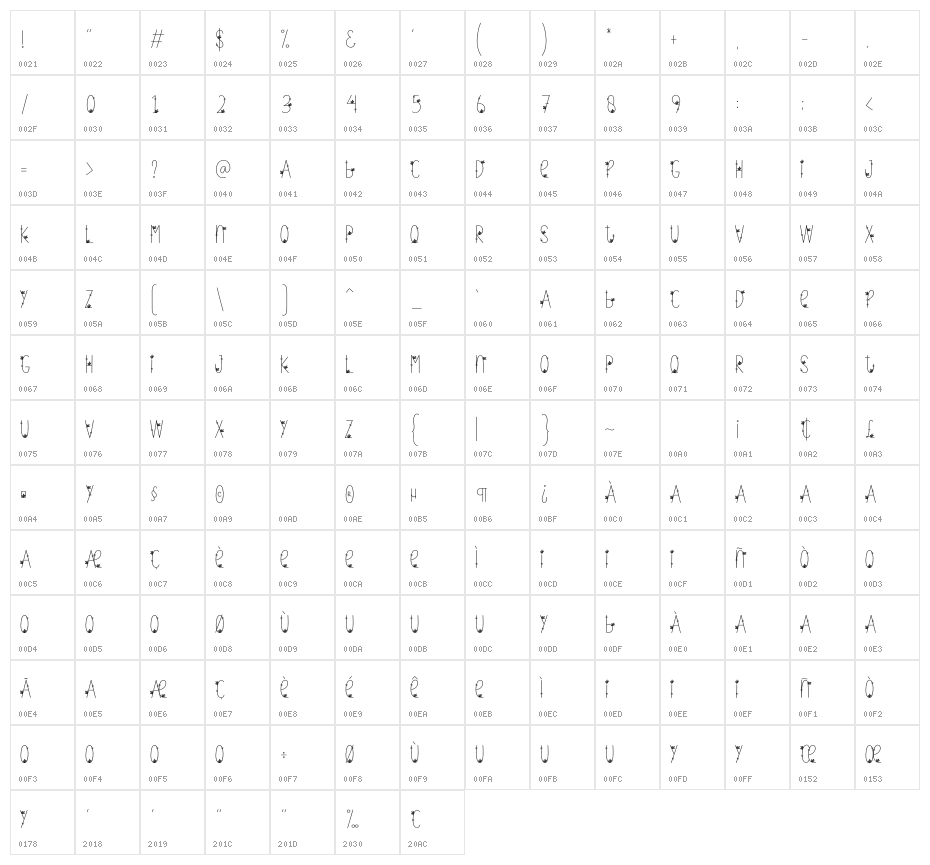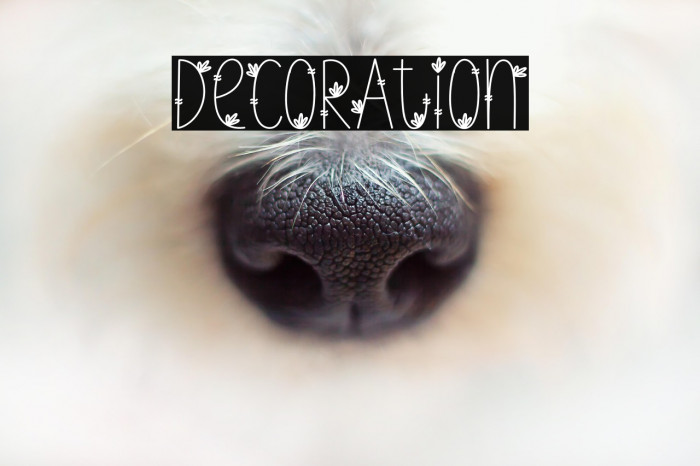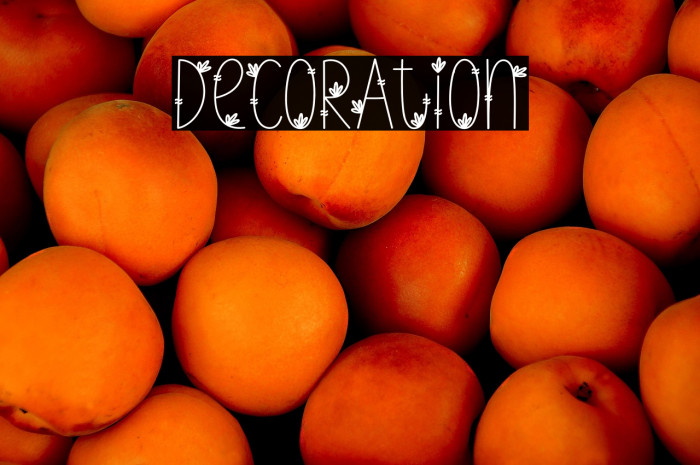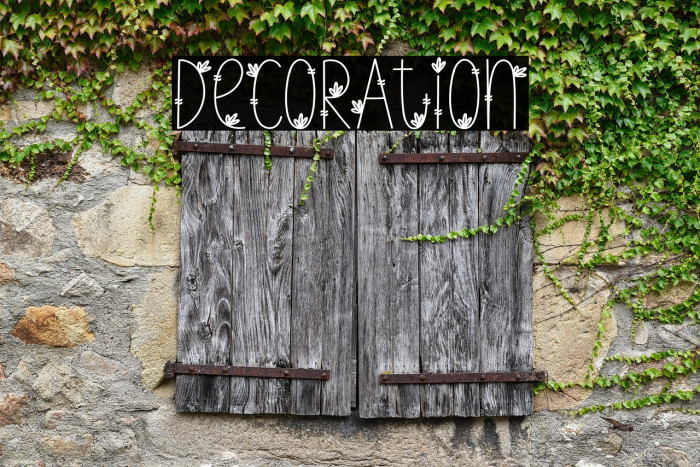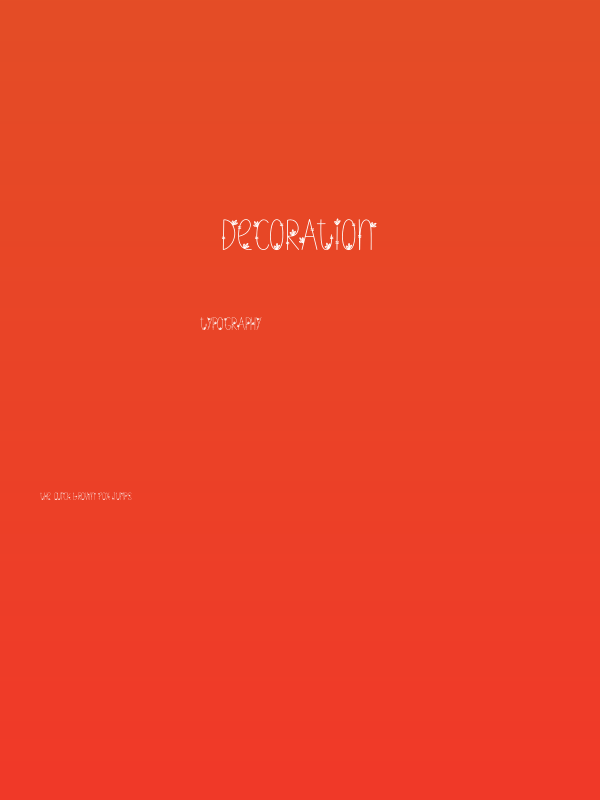
Decoration Font
Decoration Description
This decorative font features a unique design where each character is adorned with leaf-like embellishments, giving it a natural and organic feel. The letters are tall and slender, with delicate strokes that incorporate small leaf motifs at various points, adding a whimsical touch. The font maintains a consistent style across uppercase, lowercase, and numerals, ensuring a cohesive look. The special characters also follow this theme, making it suitable for projects that require a nature-inspired or playful aesthetic. Its intricate details make it stand out, while still being legible.
| Proposed Projects | Ideal for eco-friendly branding, nature-themed invitations, children's book covers, and artistic posters. |